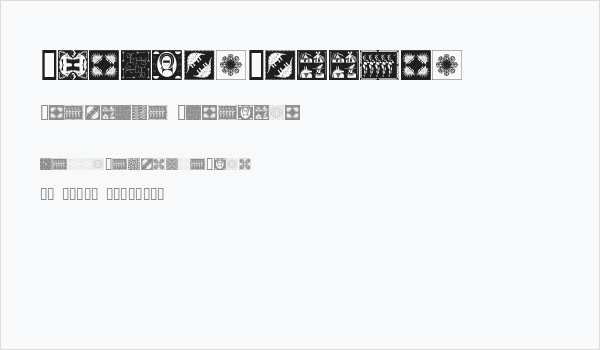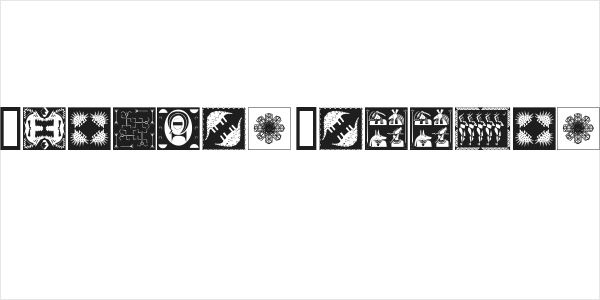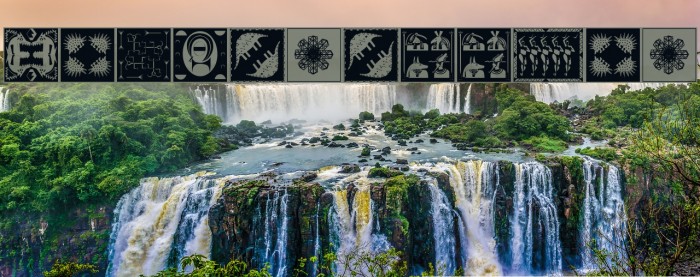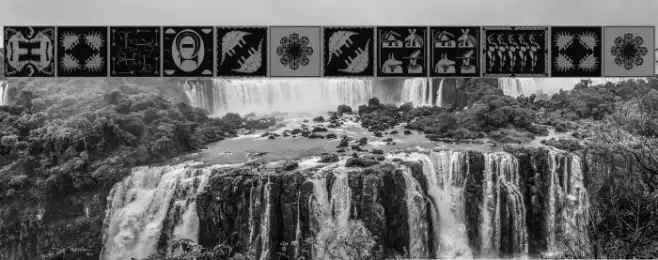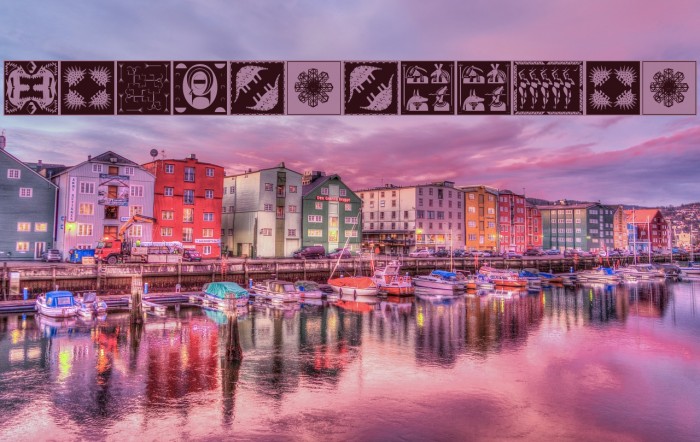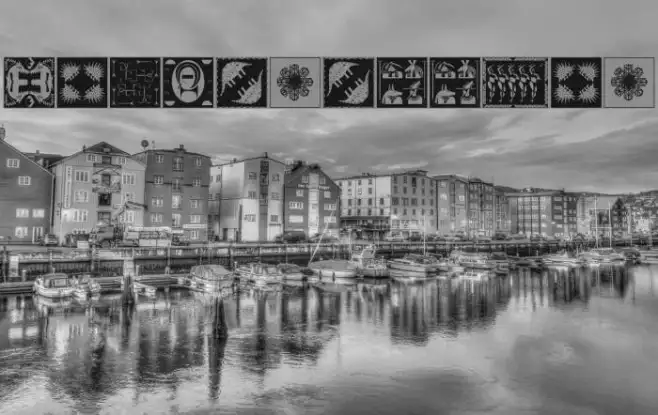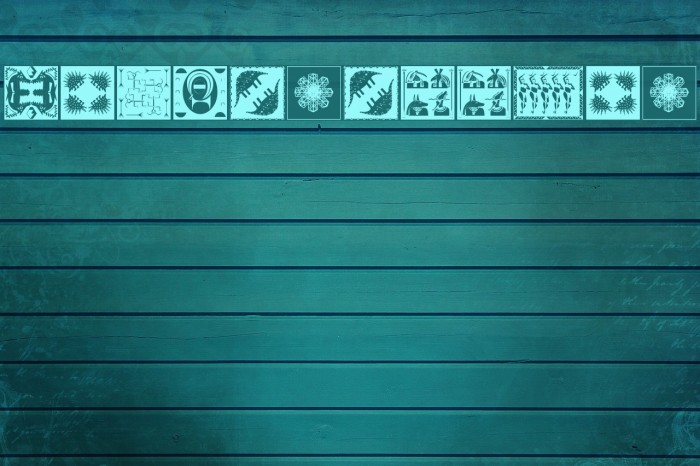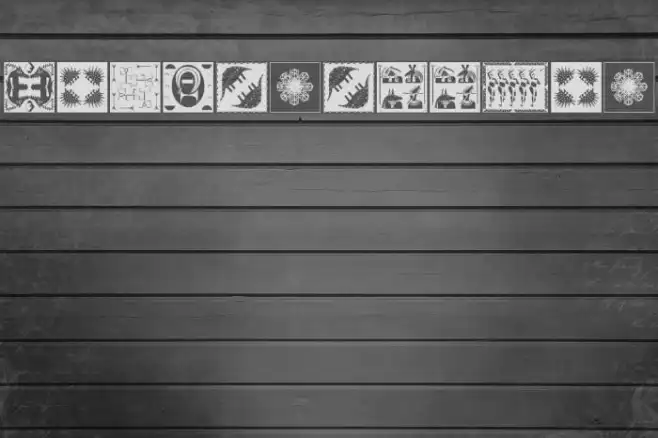
AfricanPattern Font
AfricanPattern Description
A decorative display set featuring intricate, high-contrast black and white patterns inspired by traditional African motifs, including geometric shapes, animals, and symbolic imagery. Each character is represented by a unique square illustration rather than a standard letterform.
| Overall Style | Decorative, Ethnic, Artistic |
| Use Case | Logos, Posters, Decorative elements, Themed branding |
| Proposed Projects | Cultural posters, textile design, branding for African-themed events, educational materials, art projects. |